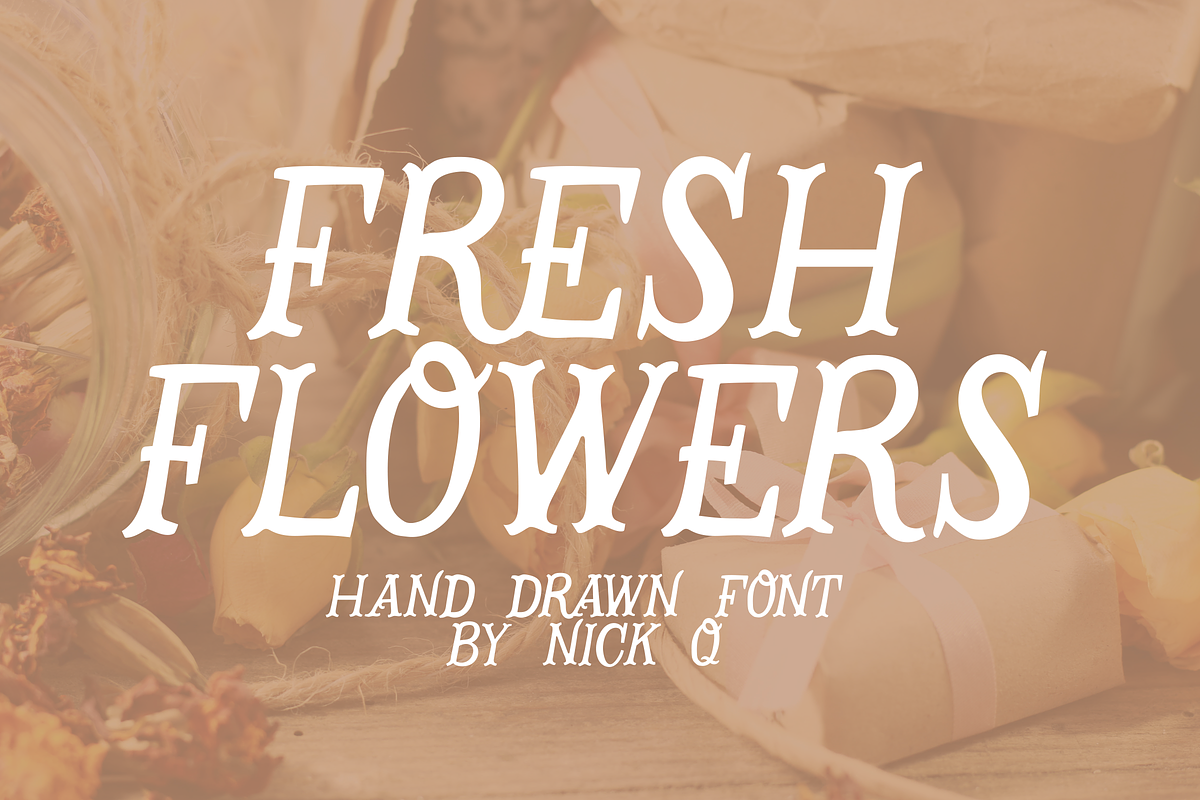
Fresh Flowers Font
A no frills font with caps, numbers & symbols. Inspired by a trip to France where I saw so many awesome floral shops and ateliers decorated with fresh flowers.
This font is perfect to add a hand drawn touch to any project!